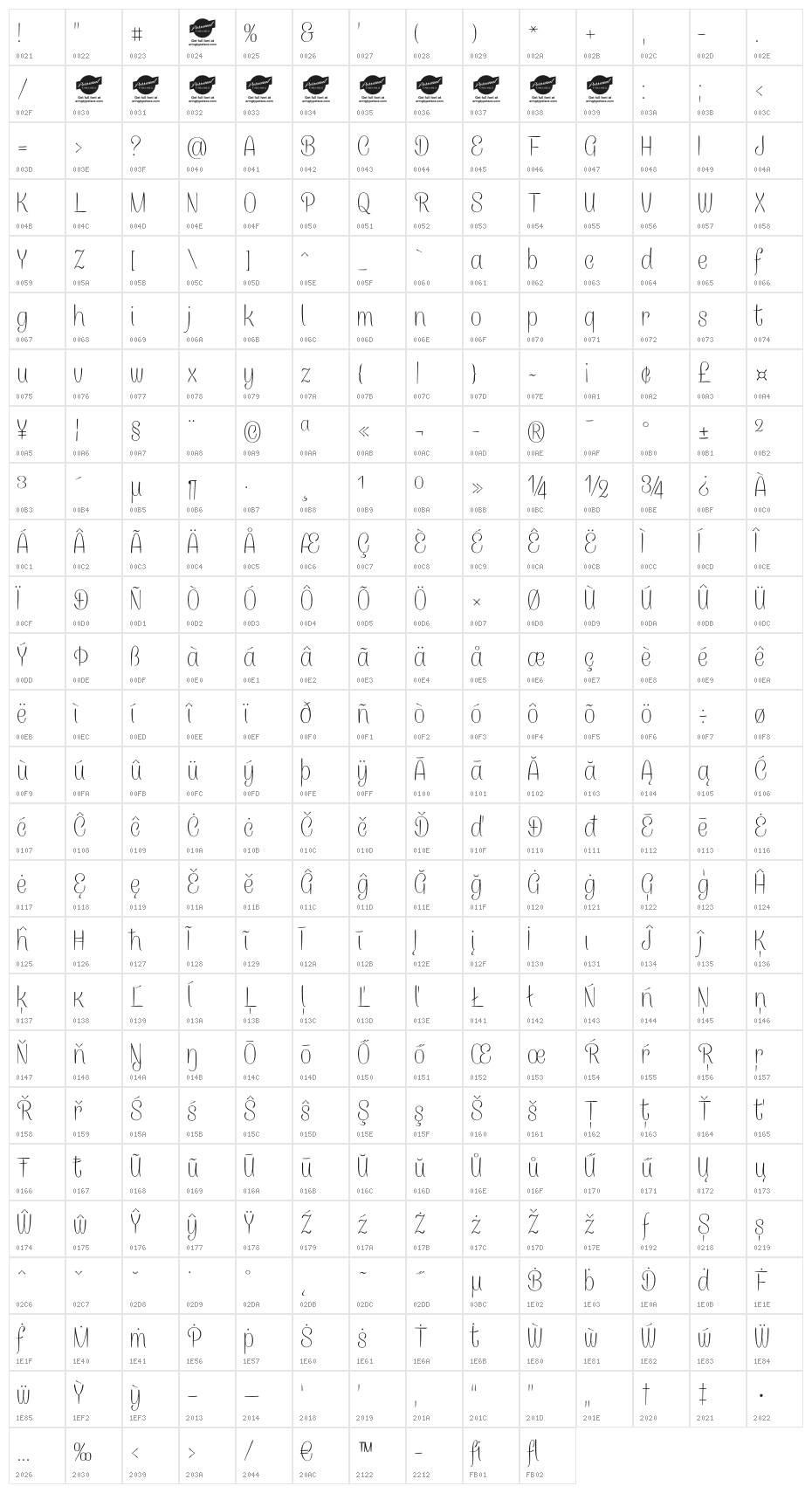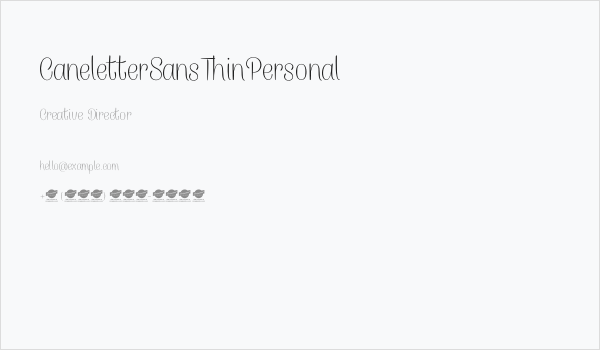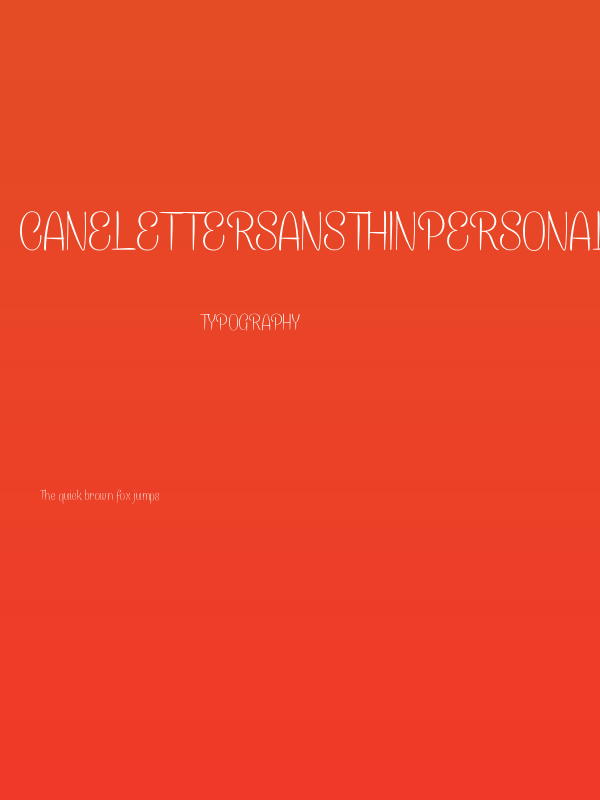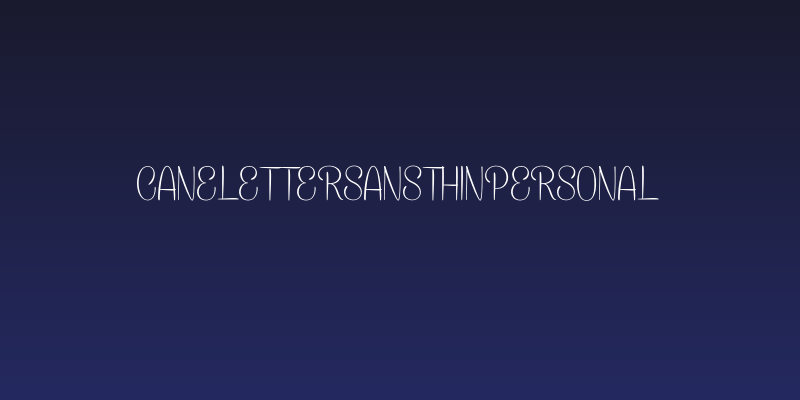
CaneletterSansThinPersonal Font
CaneletterSansThinPersonal Description
This font features a delicate and elegant design with thin, elongated strokes that give it a graceful appearance. The characters are slightly rounded, adding a touch of softness to the overall look. The uppercase letters are tall and narrow, while the lowercase letters maintain a consistent flow, enhancing readability. The font includes a variety of special characters, making it versatile for different uses. Its refined style is suitable for projects that require a sophisticated and modern touch.